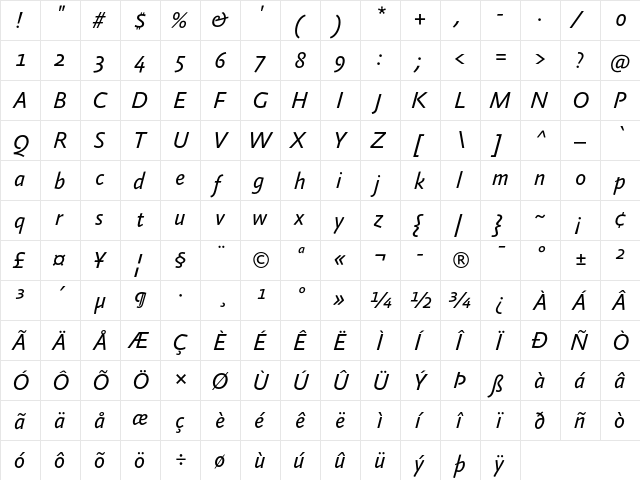
AbsaraSans-RegularItalic Regular
Design Context for AbsaraSans-RegularItalic Typeface
AbsaraSans-RegularItalic takes a measured approach to typography — its balanced proportions and neutral character make it a reliable workhorse for both digital and print work. The dynamic lean of this cut emphasises speed and emphasis in any layout.
Pro Tip: Use AbsaraSans-RegularItalic for emphasis, pull quotes, and subheadings where its slanted energy can add rhythm to the layout.